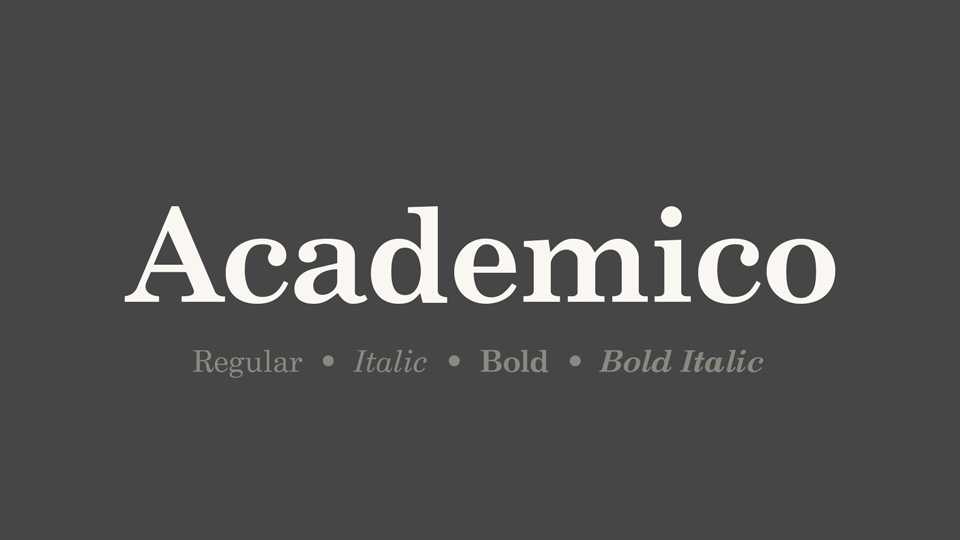
Download Academico typeface, a medium contrast serif font family in four styles based on the of New Century Schoolbook. Academico is great for both headings and body copy.